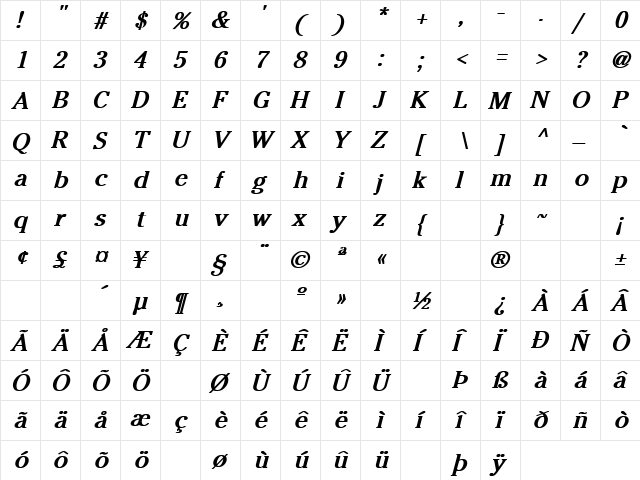
Nobody's Fault 2 Bold Italic Font Preview
Design Context for Nobody's Fault 2 Typeface
Nobody's Fault 2 takes a measured approach to typography — its balanced proportions and neutral character make it a reliable workhorse for both digital and print work. The dynamic lean of this cut emphasises speed and emphasis in any layout. The heavy weight commands attention and anchors typographic hierarchies.
Pro Tip: Use Nobody's Fault 2 for emphasis, pull quotes, and subheadings where its slanted energy can add rhythm to the layout.